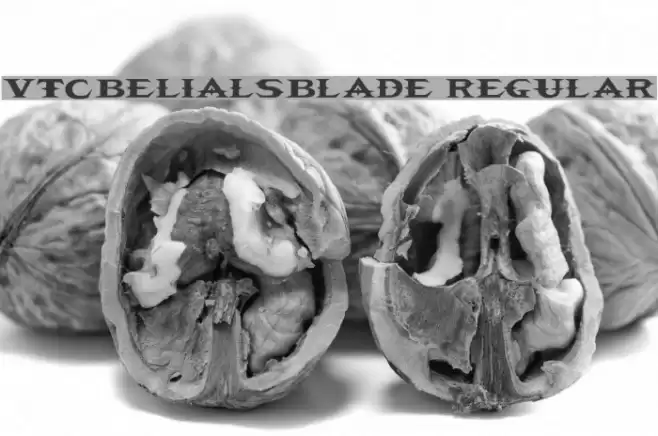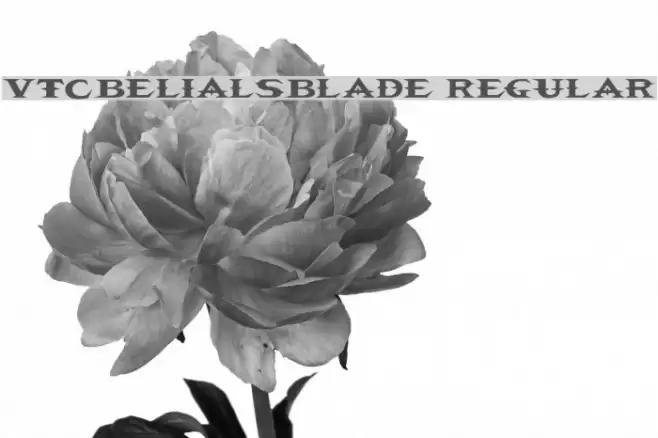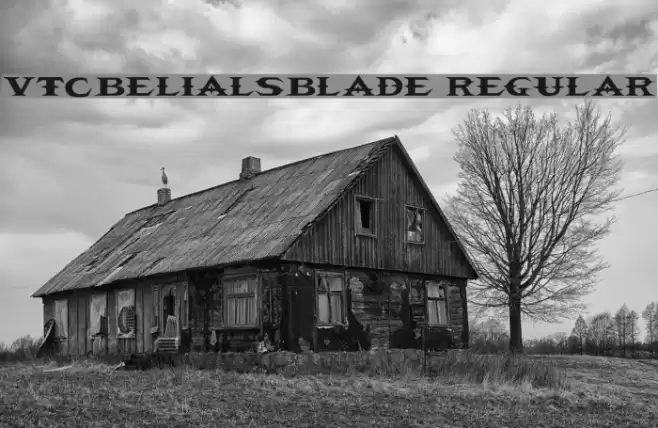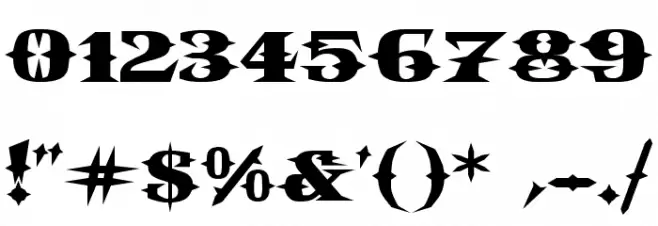
VTCBelialsBlade Regular Font
VTCBelialsBlade Regular Description
This font features a bold and dramatic style with sharp, angular edges and a gothic influence. The characters are designed with unique, pointed serifs and intricate detailing, giving them a distinct, edgy appearance. The uppercase and lowercase letters maintain a consistent style, with the uppercase being slightly more pronounced. Numbers and special characters follow the same design principles, ensuring a cohesive look across all glyphs. The font's overall aesthetic is both striking and memorable, making it suitable for projects that require a strong visual impact.
A bold, gothic-inspired font with sharp, angular serifs and intricate detailing from Uncategorized fonts.
- Proposed Projects: Ideal for use in horror-themed designs, album covers, posters, and branding that requires a dramatic flair.
- Overall Style: Gothic, Decorative